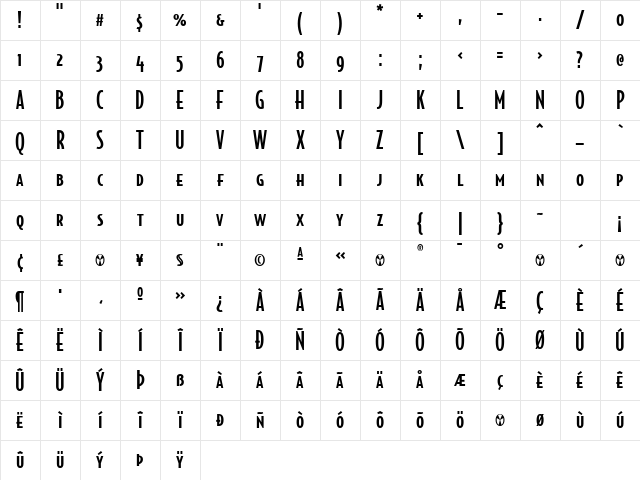
BodegaSansMediumSmallcaps Regular
Design Context for BodegaSansMediumSmallcaps
BodegaSansMediumSmallcaps is a composed and adaptable typeface that performs quietly and consistently across a wide range of design contexts.
Pro Tip: Use BodegaSansMediumSmallcaps in both headline and body roles to test its range before committing to a single application.